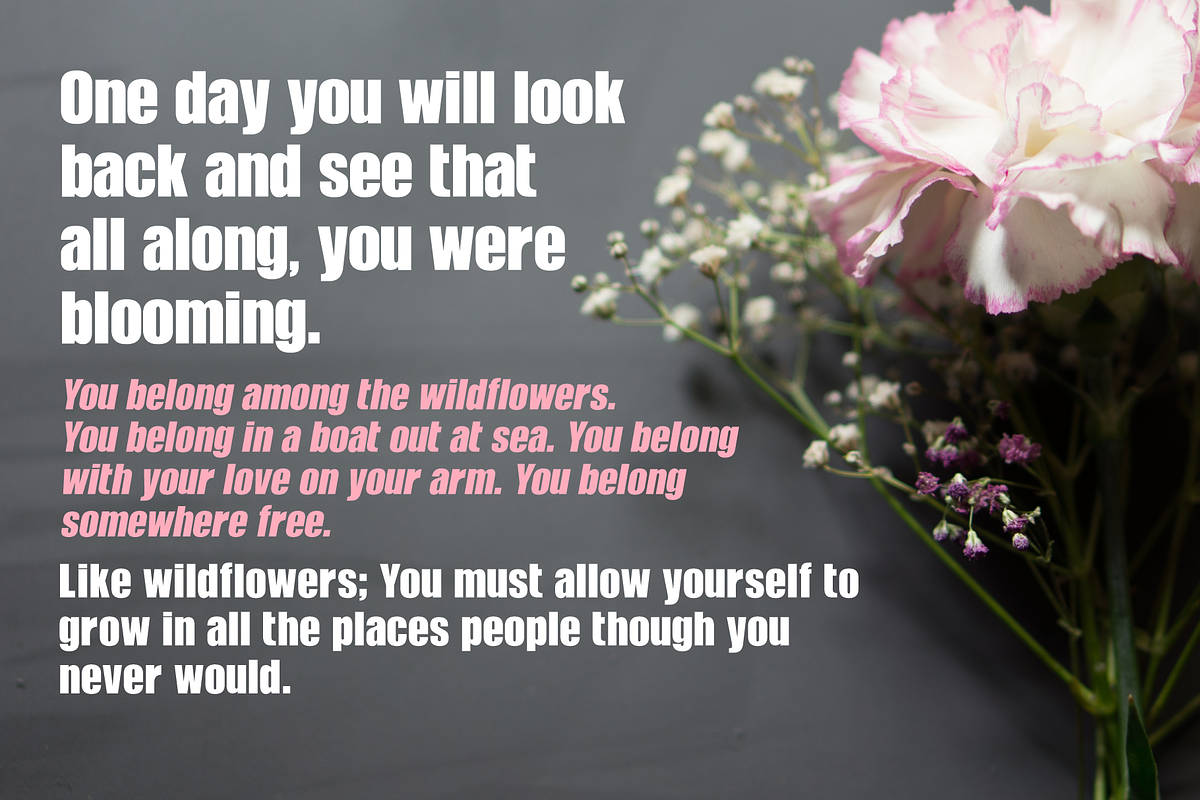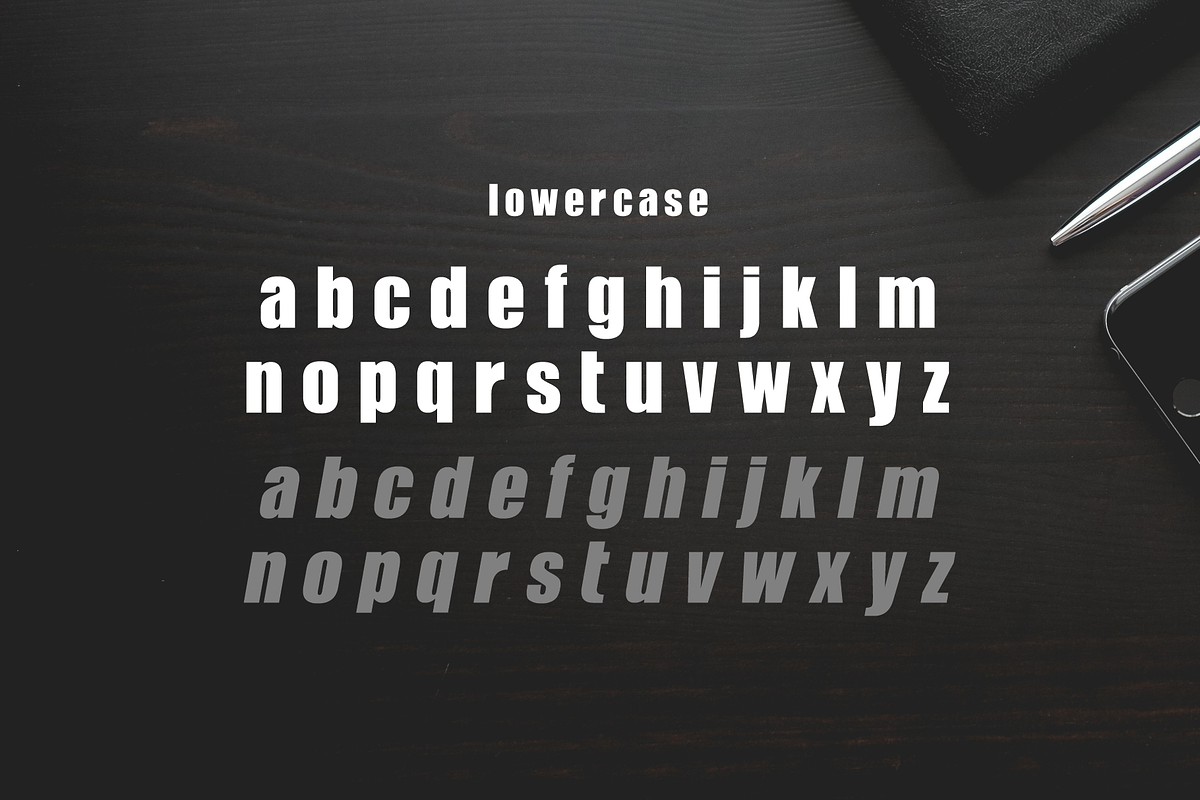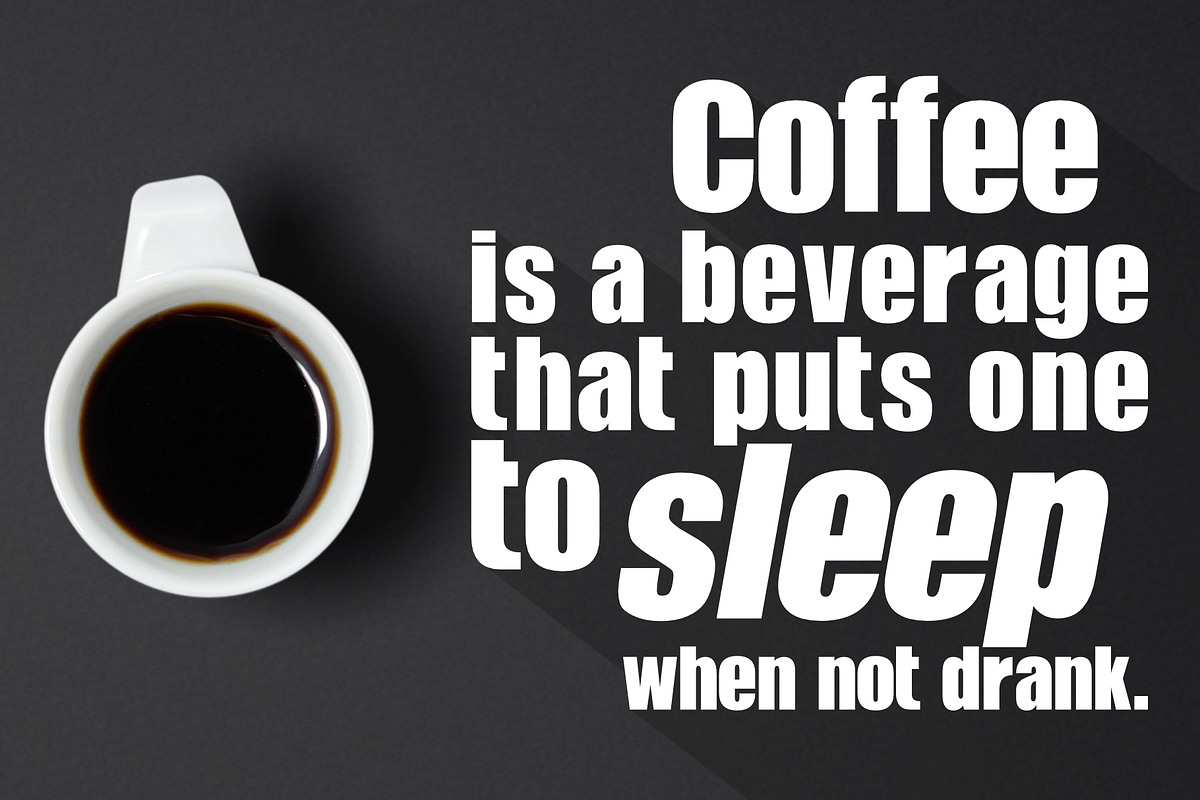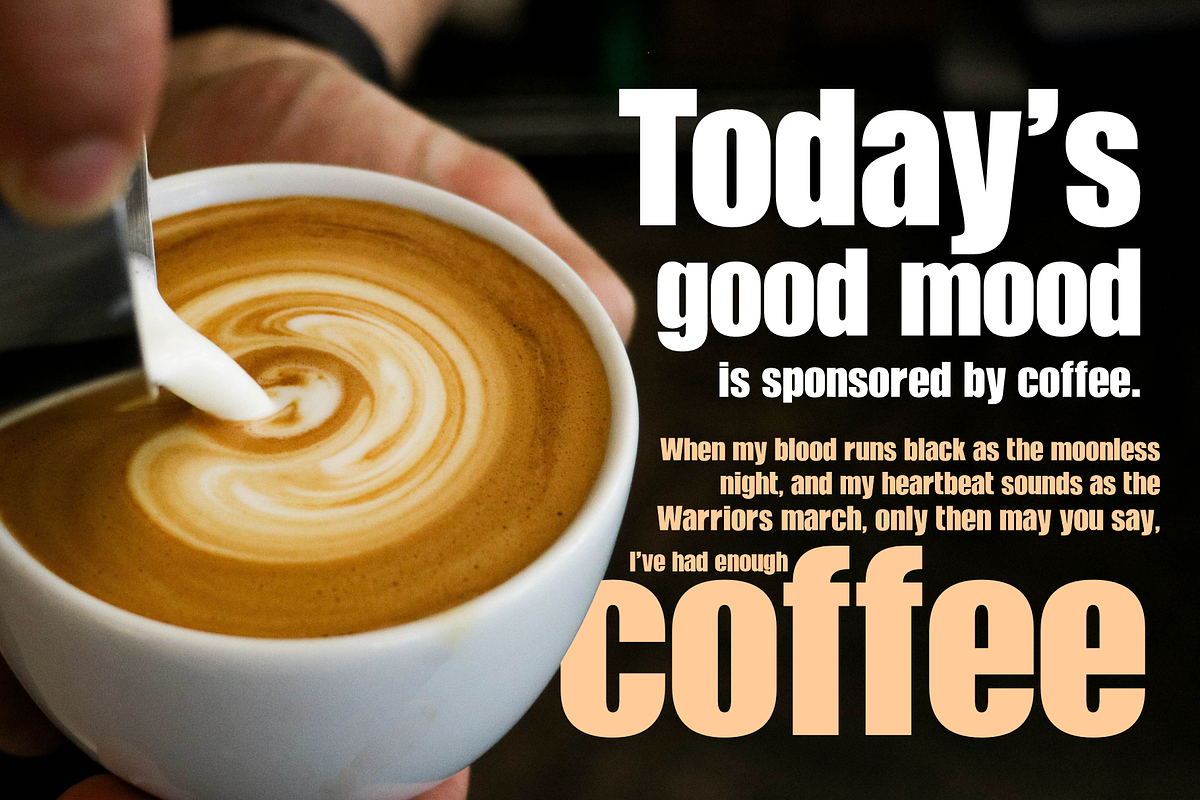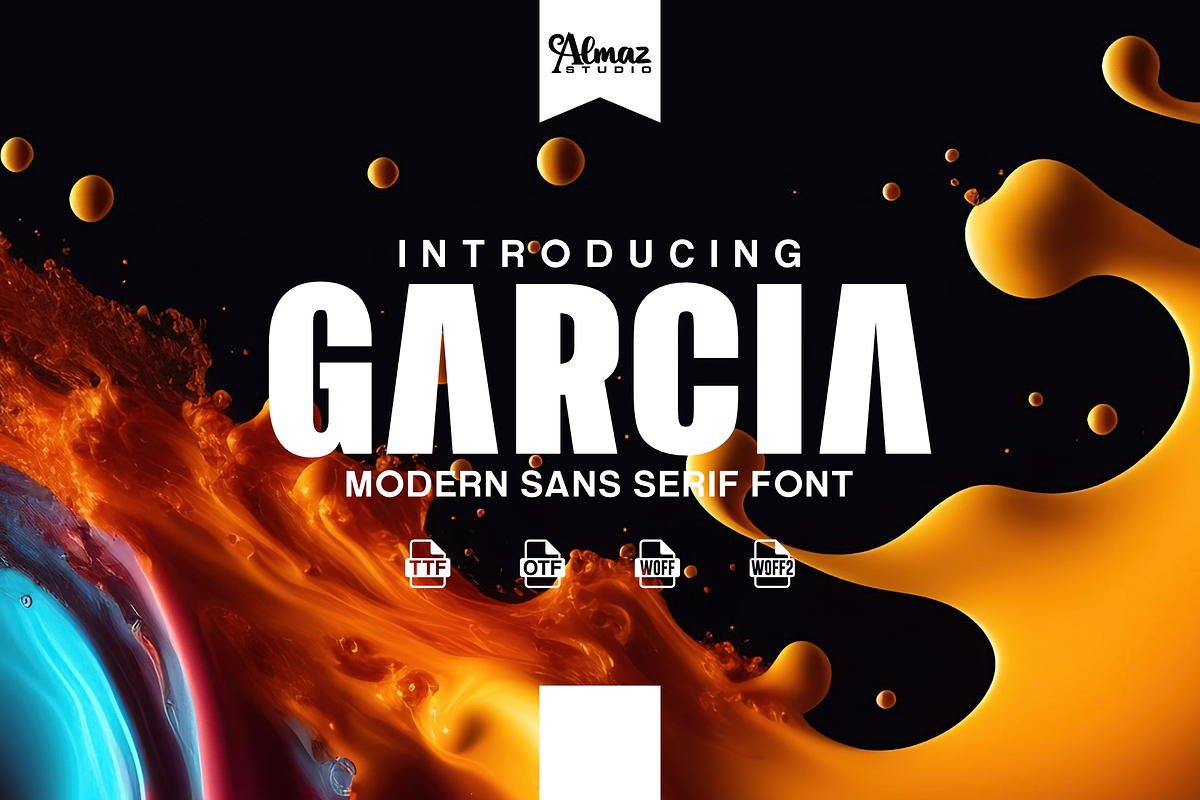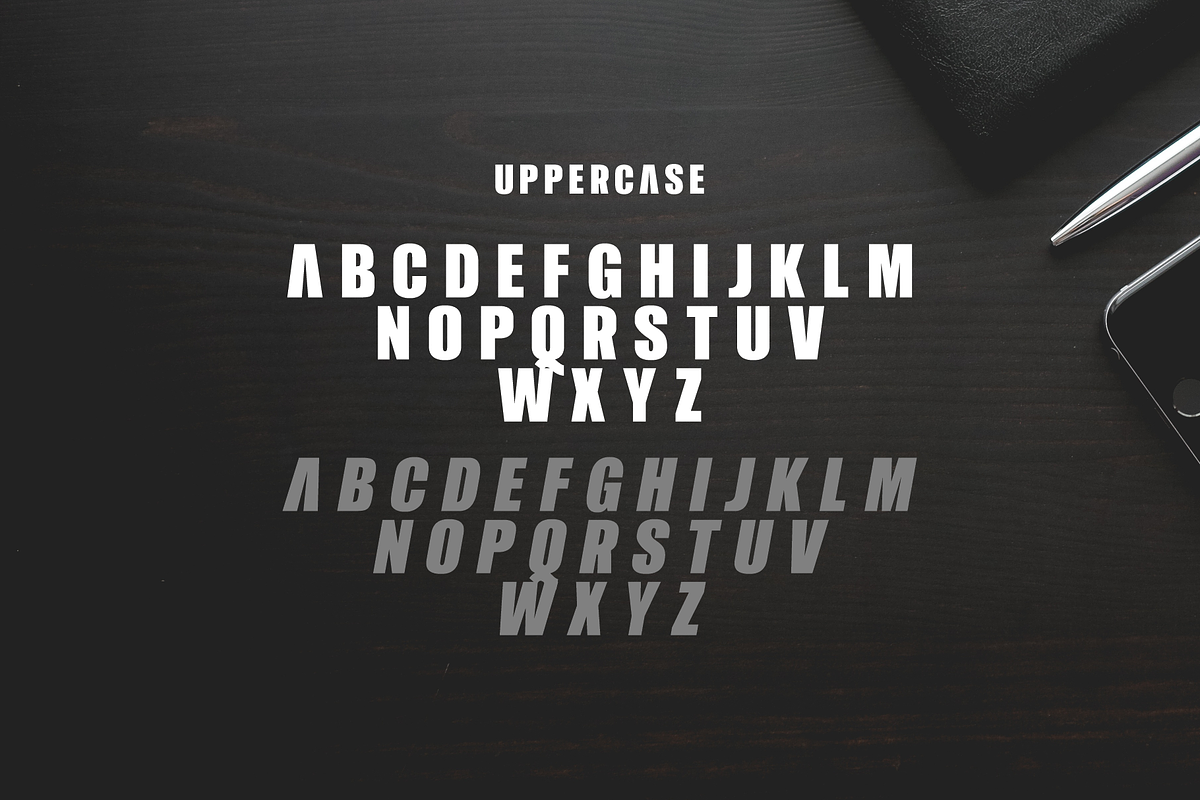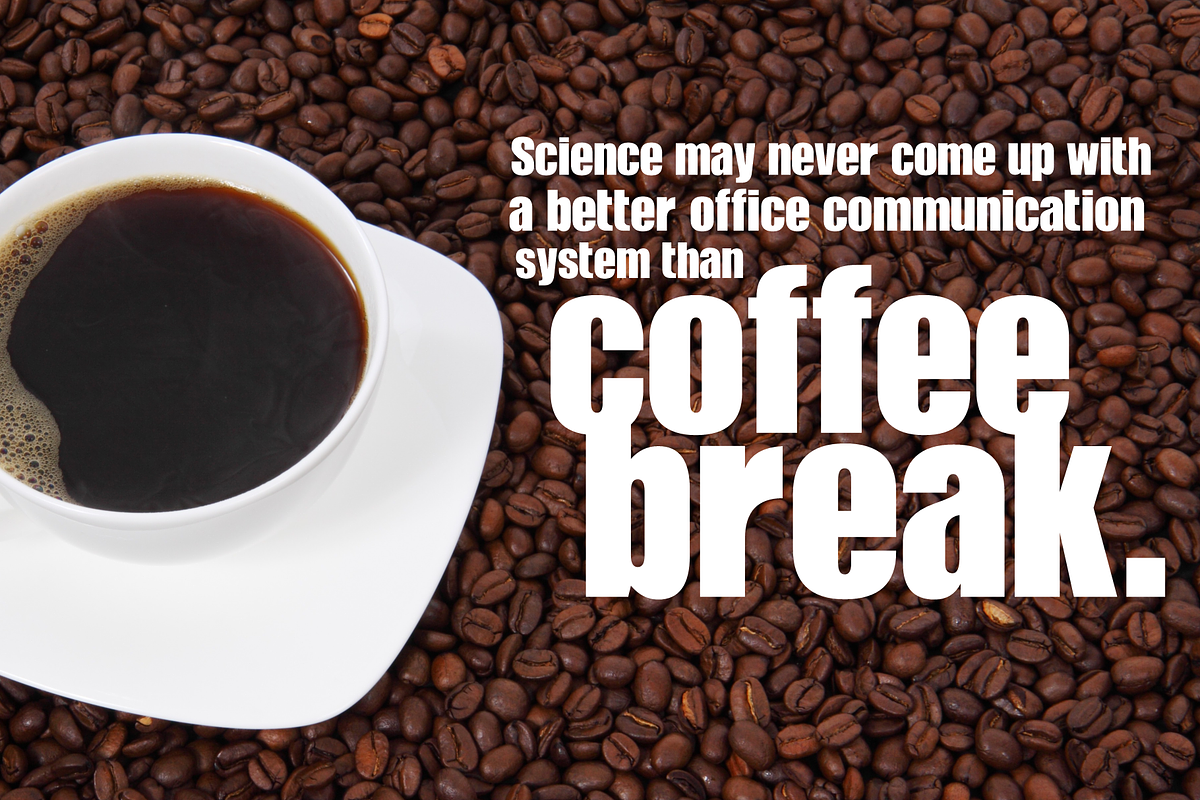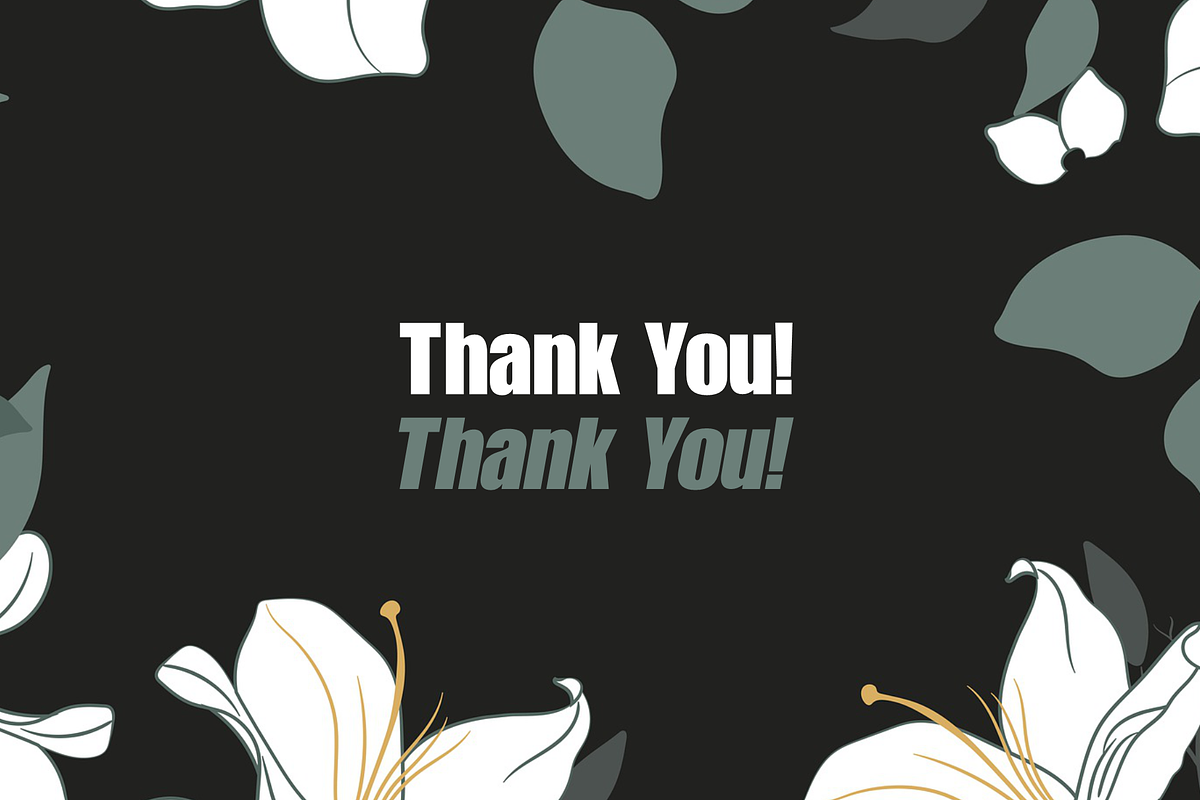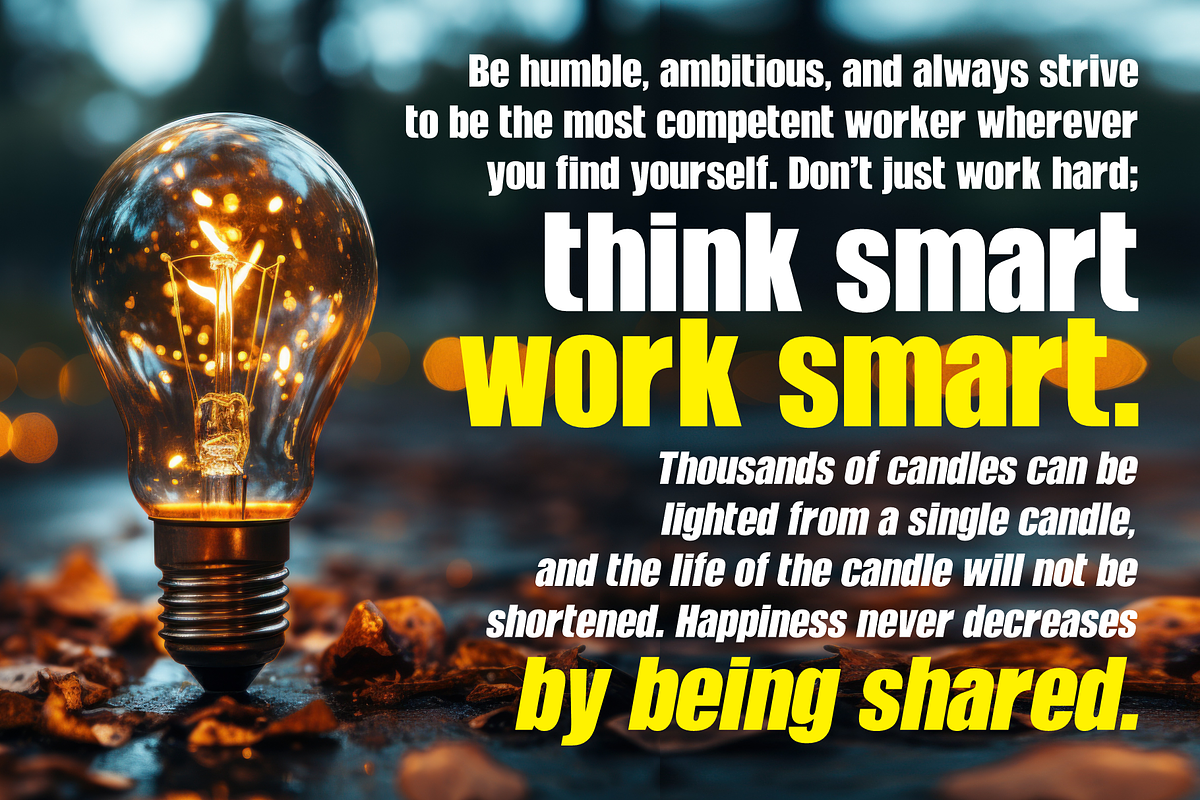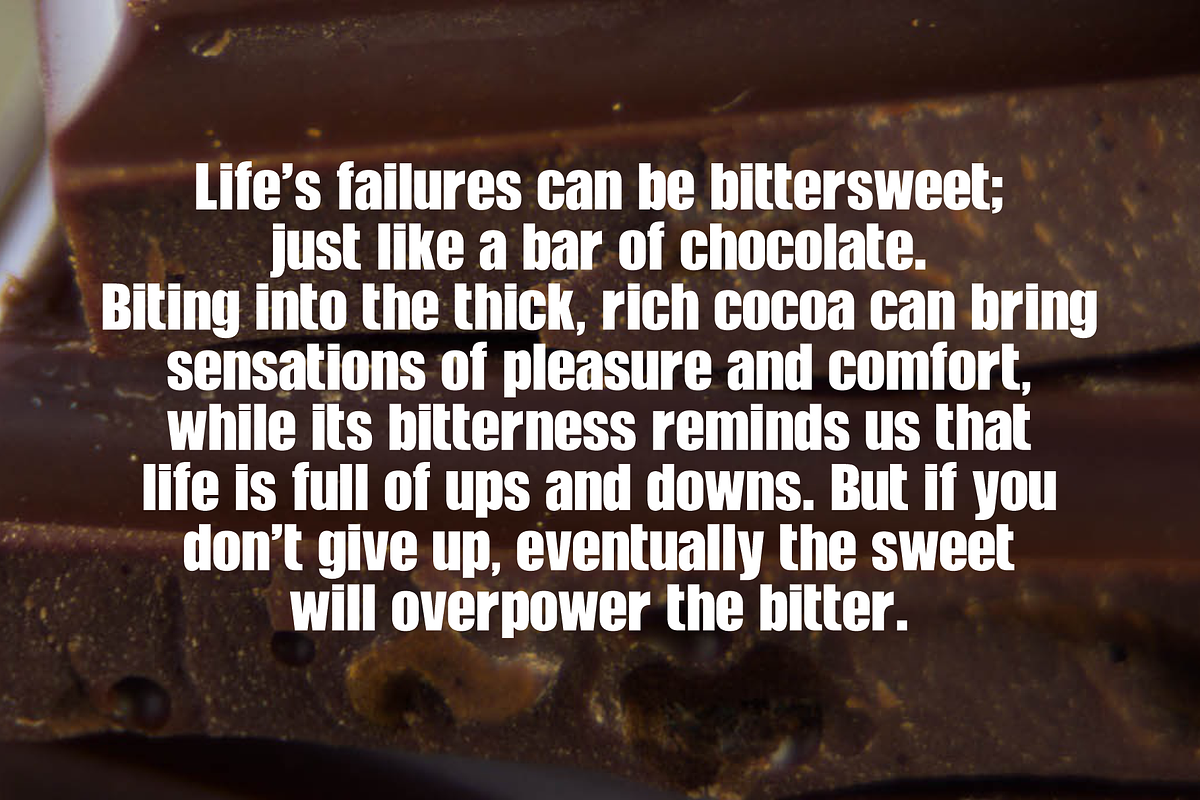
Garcia
Garcia is an elegant sans serif font with a beautiful contrast. Made from font designer named Almaz Studio™. This typeface is a family of Sans Serif fonts designed with a strong and modern feel. It’s a contemporary sans serif typeface. The font family comes in Regular and Bold weights, with support of Latin and Cyrillic alphabet. This font is perfect for your design needs such as layout designs, apparel, magazines, posters, logos, branding, and others. Garcia can be used in its compressed widths to manage space on the printed page and on the screen. In these widths Heading Now excels in titles and subheadings, timetables, infographics and in situations of exuberant and excessive copywriting. On the other side of the width spectrum, you can find extended width variants, ready to be used for titling where style and energy matter more than pixel or paper economy.